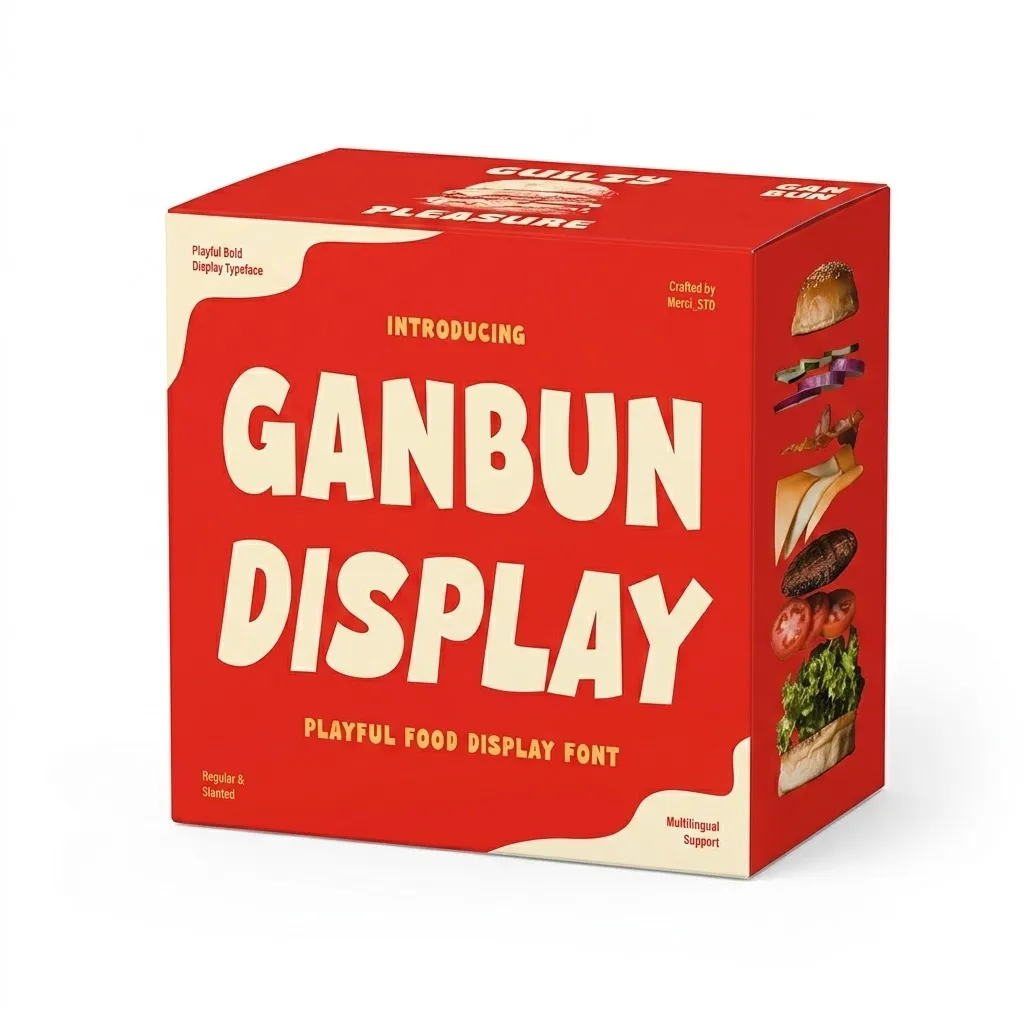
Ganbun Display – Playful Food Display Font
Ganbun Display is a playful bold display font with a fun and energetic personality. Featuring chunky shapes and soft curves, this font is perfect for food branding, menu titles, kids projects, playful packaging, posters, logos, and cheerful visual identities. Ganbun brings a friendly and eye-catching style to every design.
Unique Hand-Drawn Style